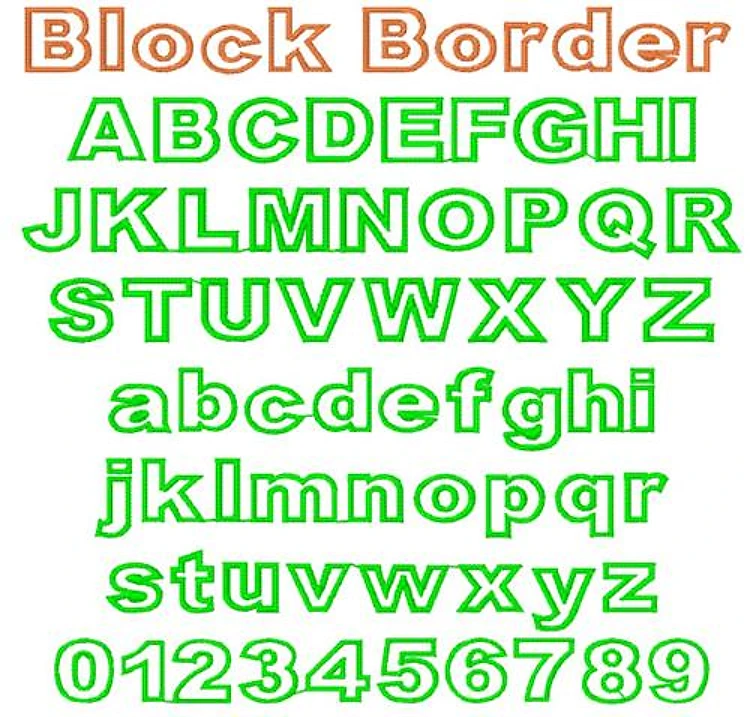
Internet Stitch is happy to present Block Border machine embroidery font which has Bold block border machine embroidery font ideal for decorative projects on apparel and home textiles. This font features thick outlined letters, creating a striking look. Available in ELP format. included. If you would like to view more embroidery fonts and alphabets please search our embroidery fonts page.